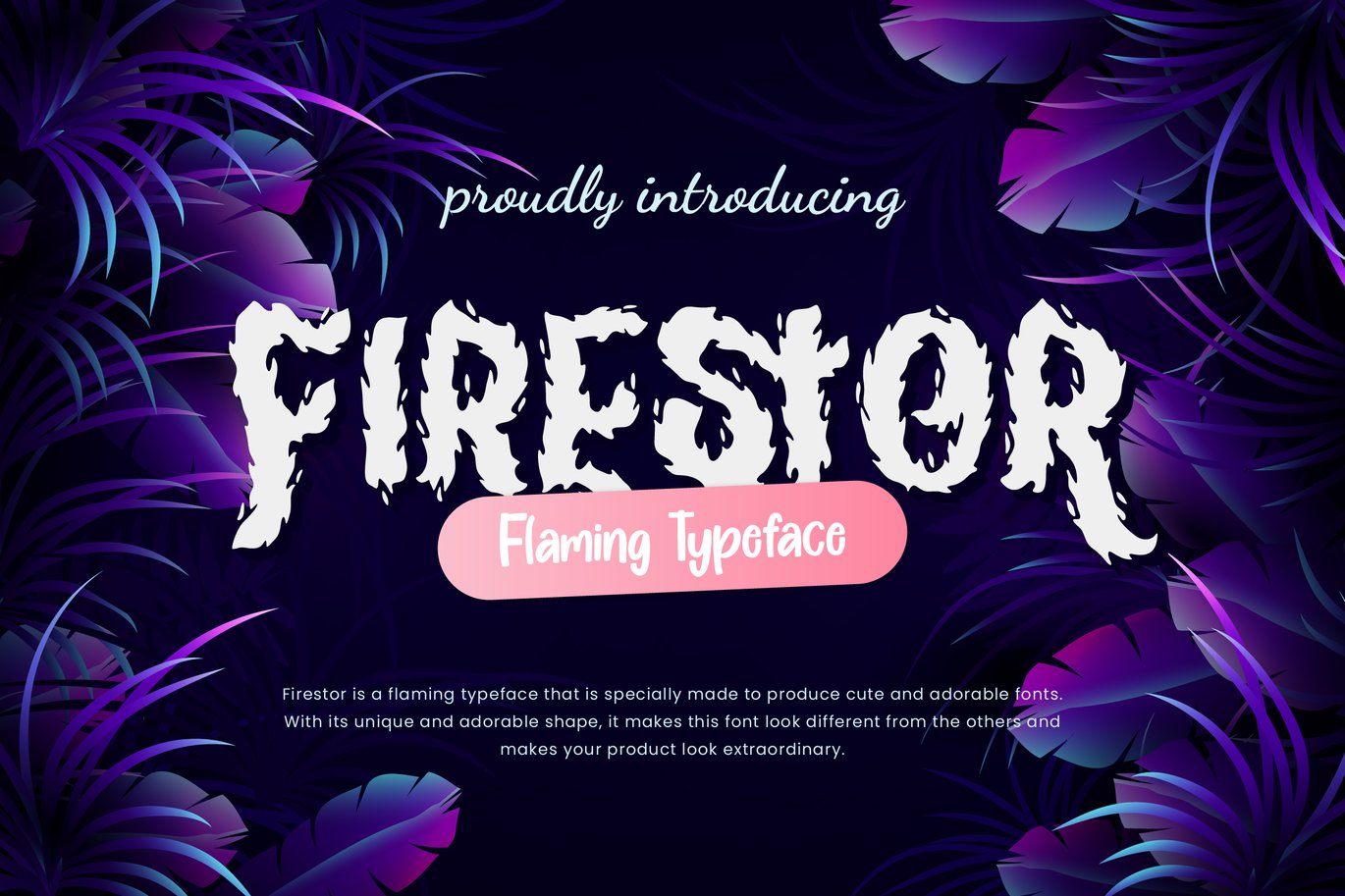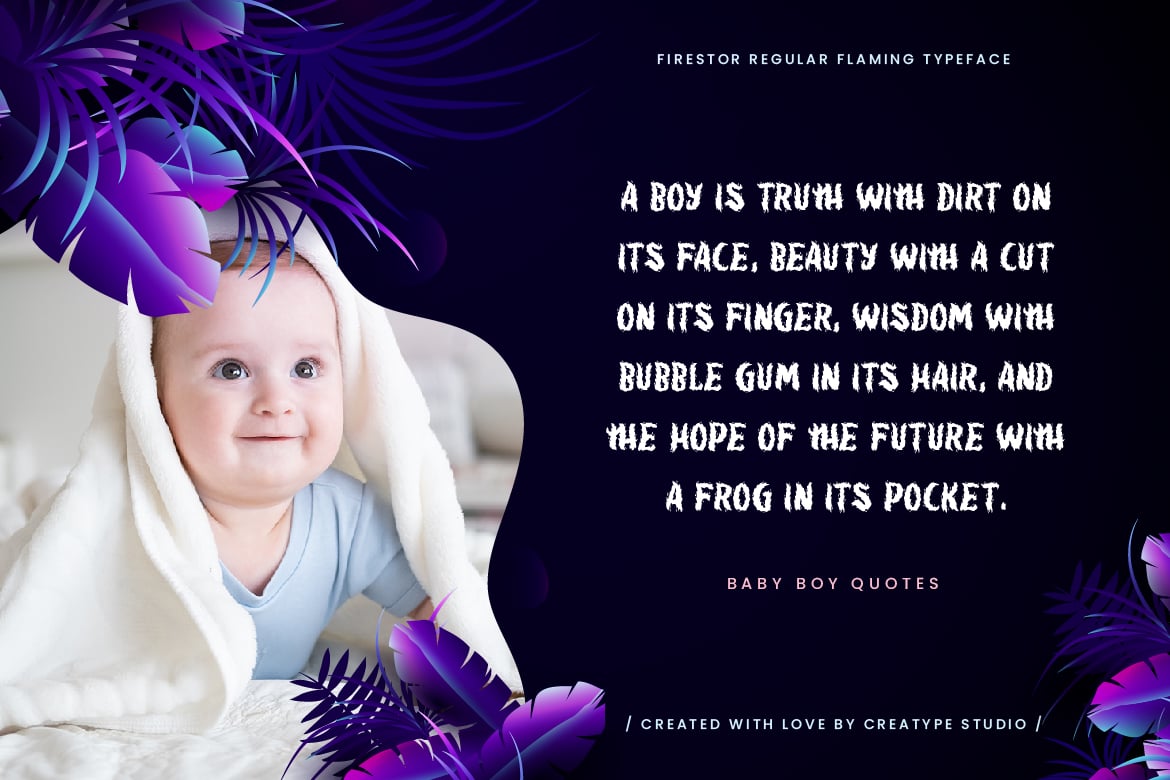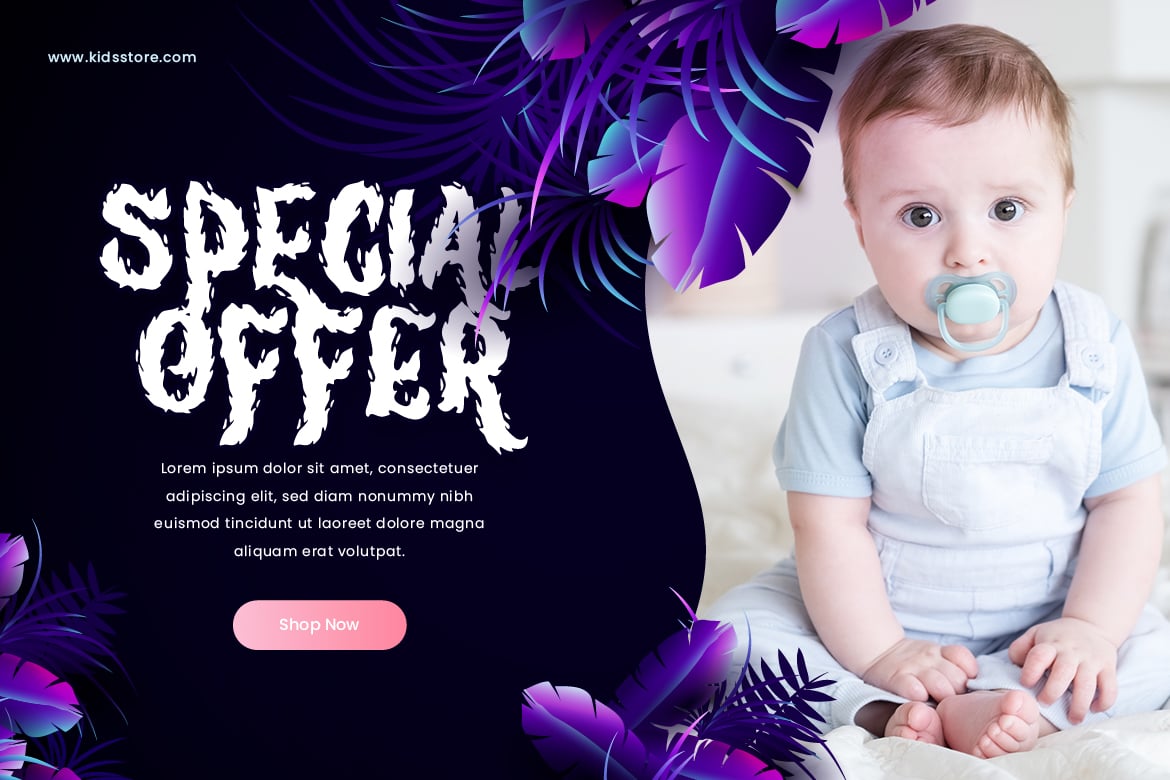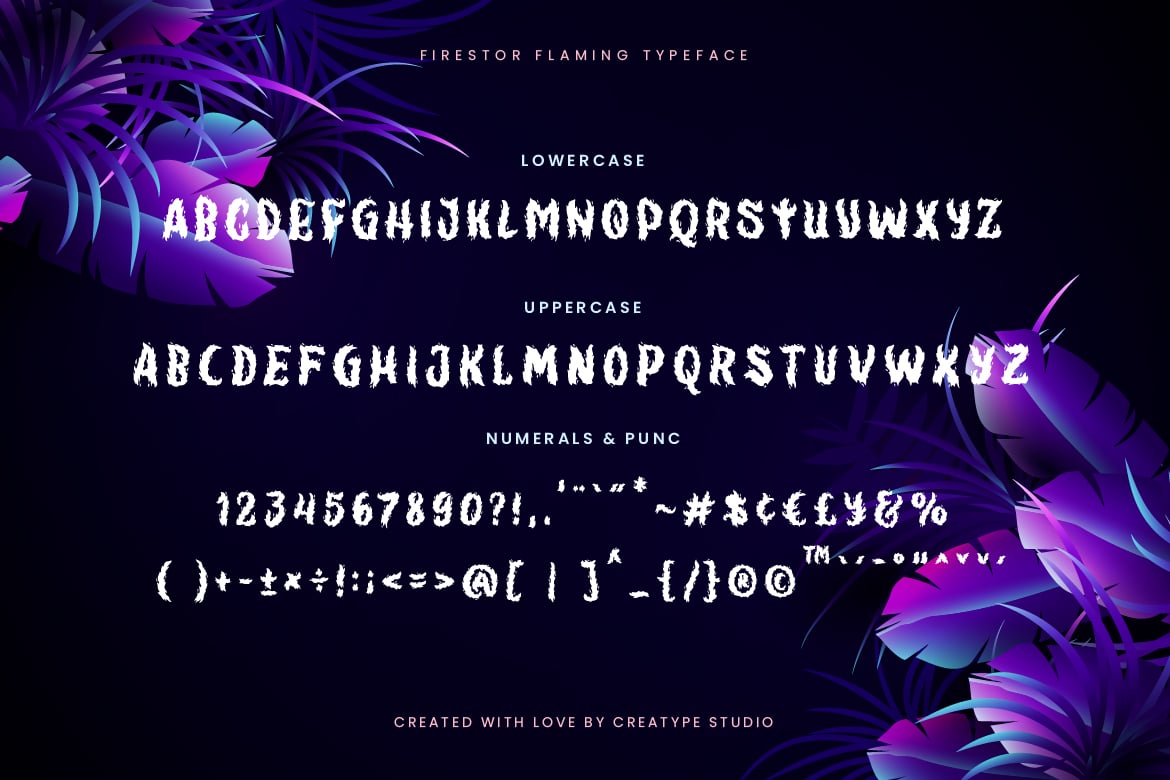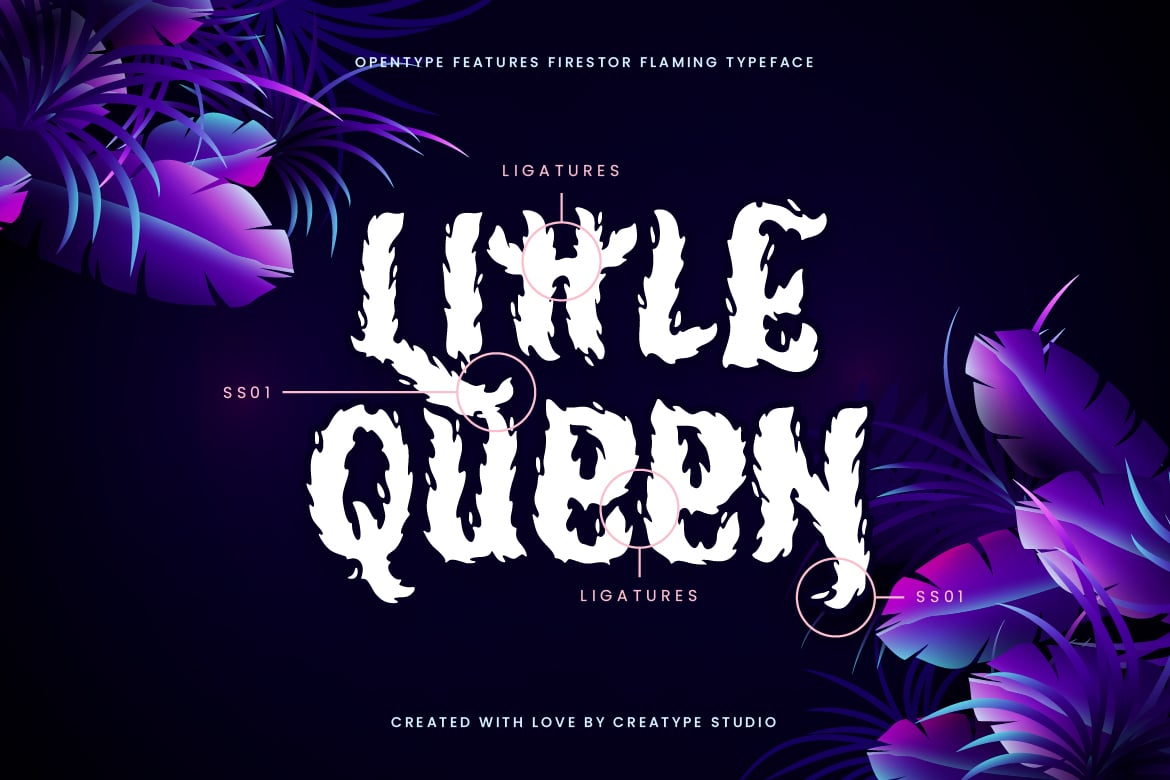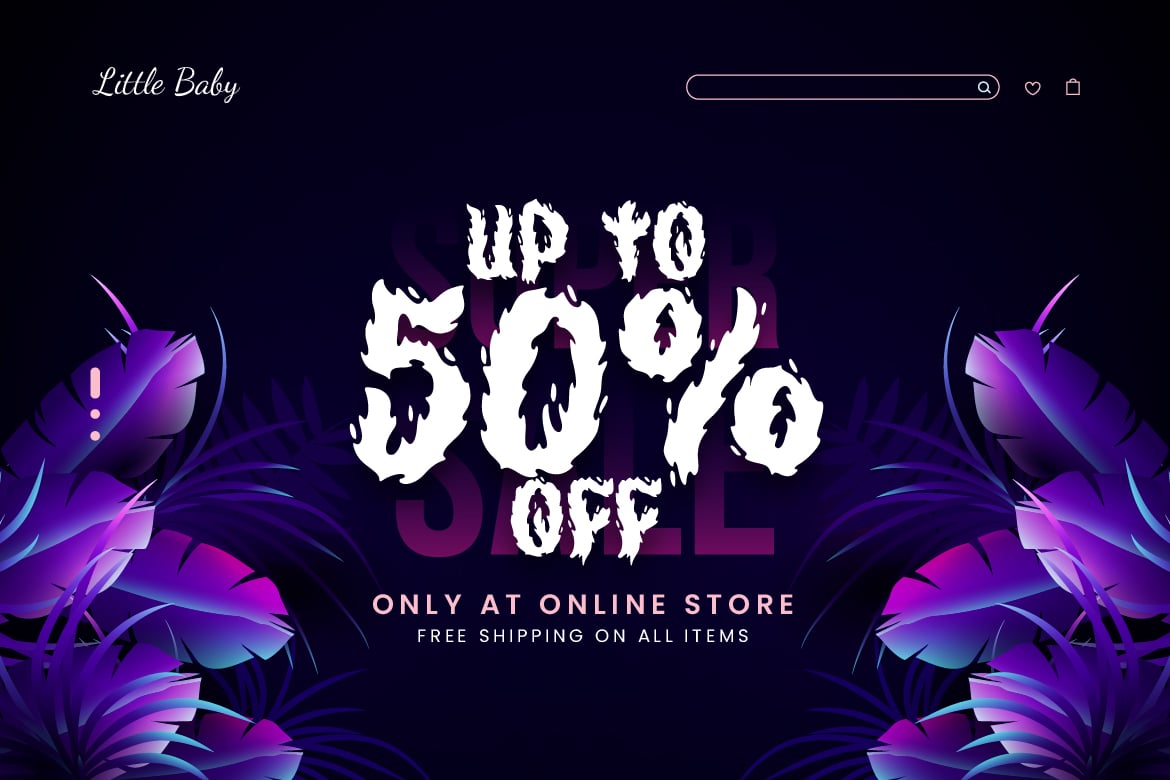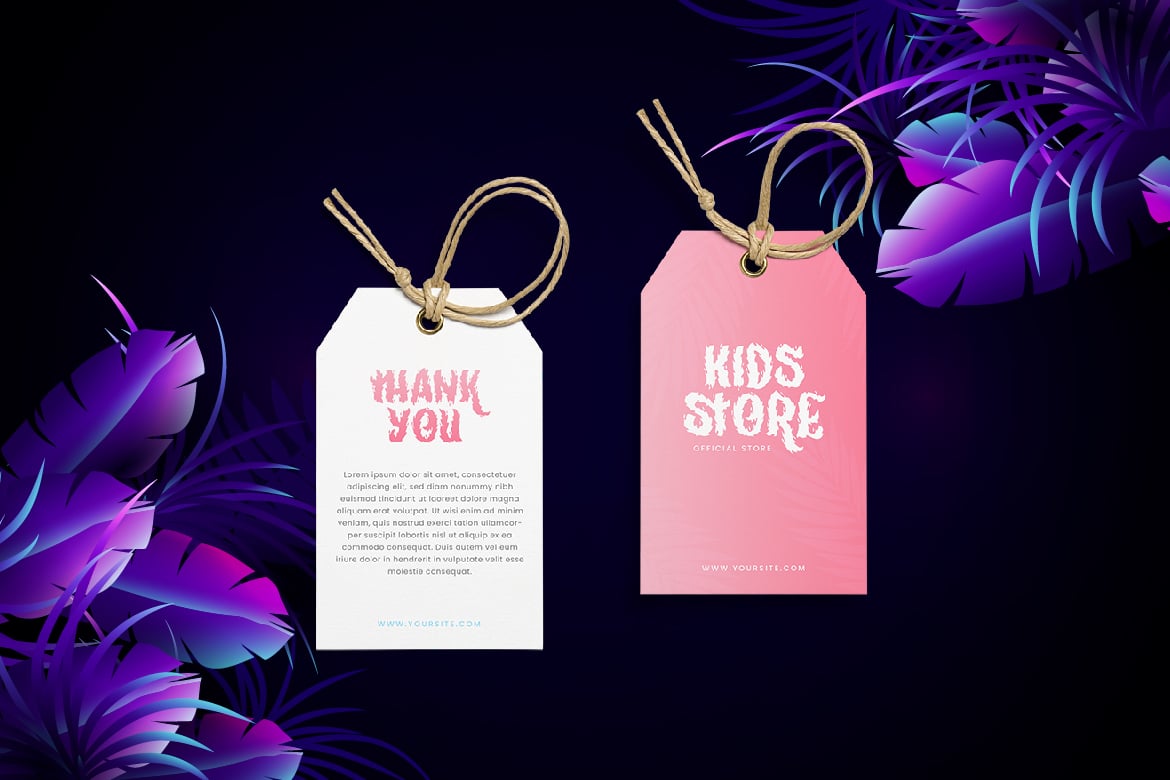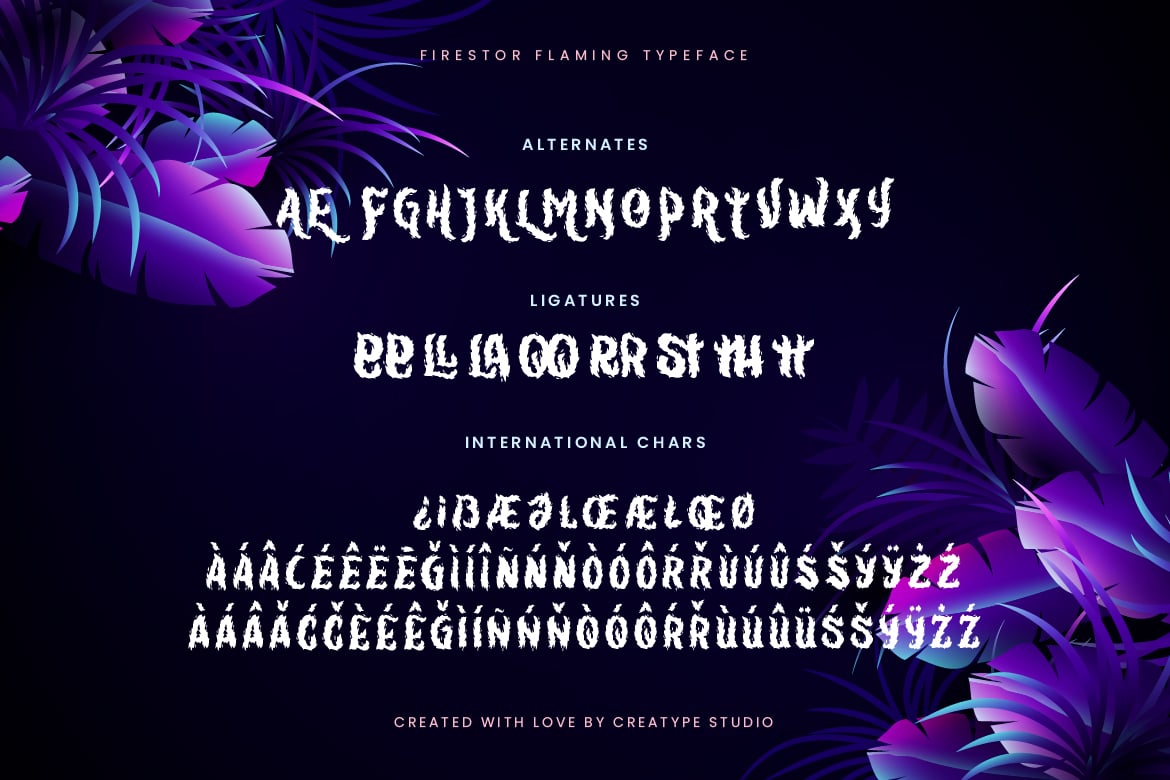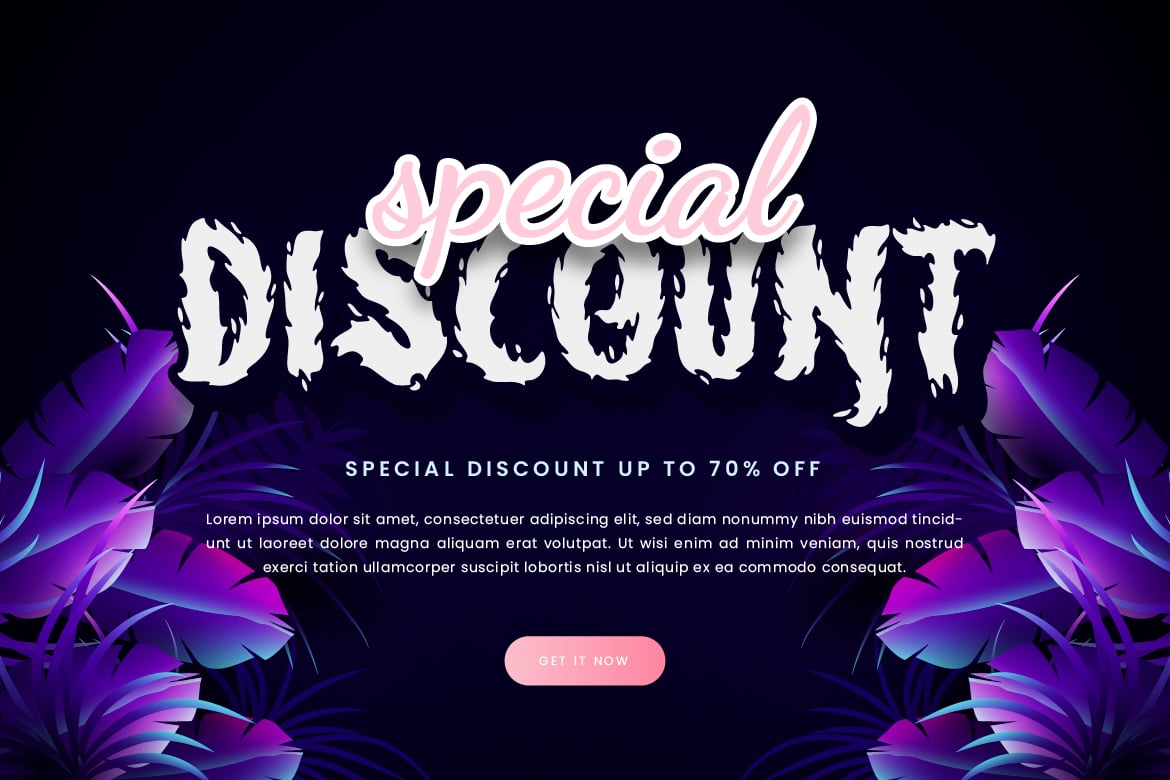
Firestor Flaming Business Font
Firestor is a flaming typeface that is specially made to produce cute and adorable fonts. With its unique and adorable shape, it makes this font look different from the others and makes your product look extraordinary.
Firestor is perfect for branding projects, logo, wedding designs, social media posts, advertisements, product packaging, product designs, label, photography, watermark, invitation, stationery and any projects that need handwriting taste.
- Ton of glyphs
- Ligature & Alternate
- Fonts include multilingual support for; Afrikaans, Albanian, Czech, Danish, Dutch, English, Estonian, Finnish, French, German, Hungarian, Italian, Latvian, Lithuanian, Norwegian, Polish, Portuguese, Slovak, Slovenian, Spanish, Swedish.